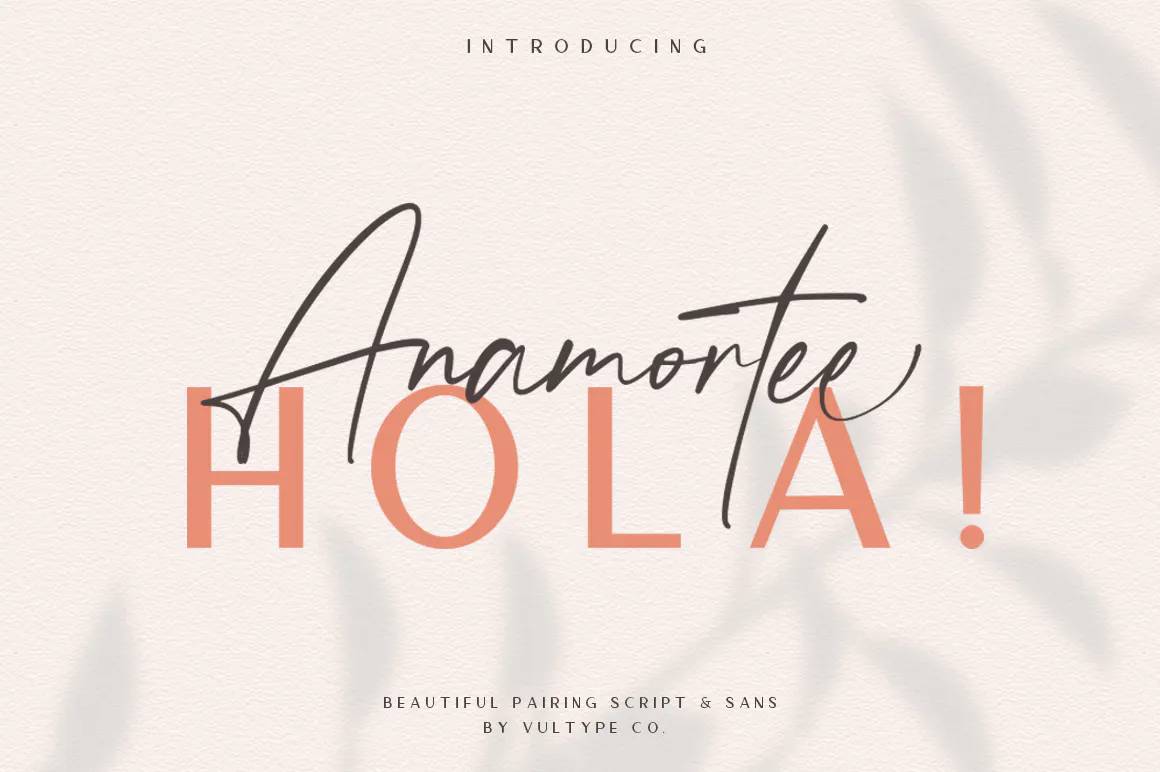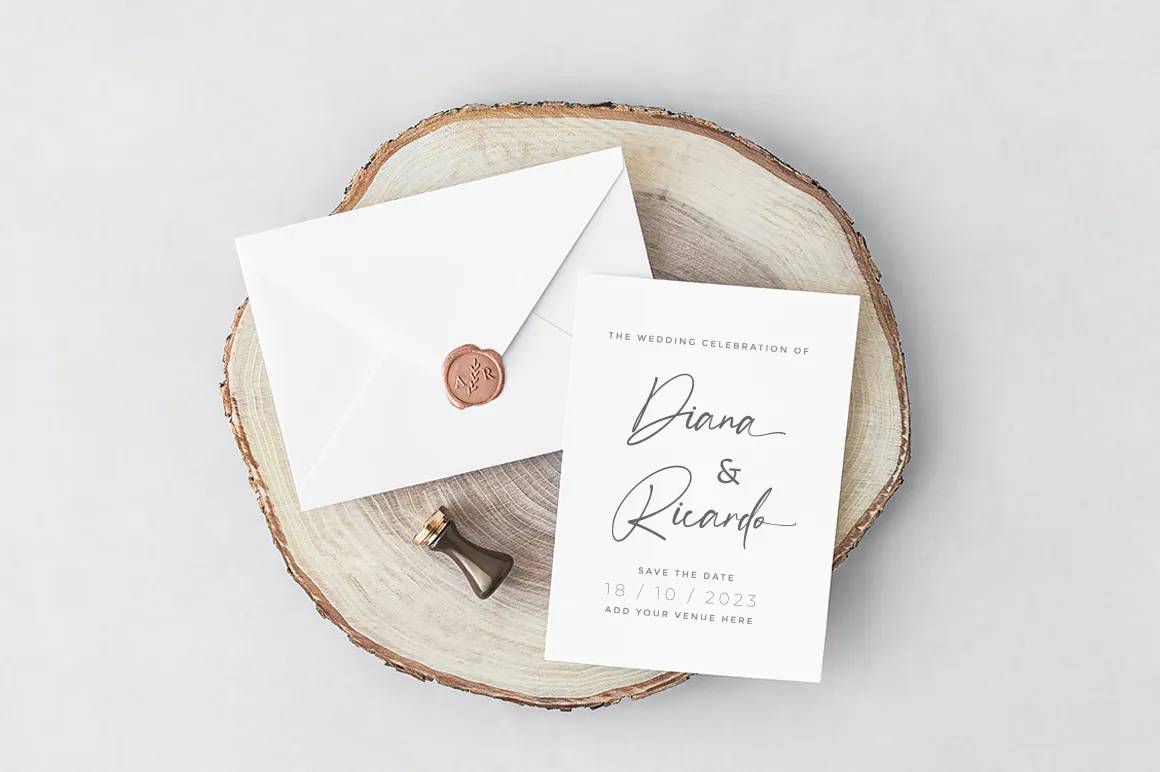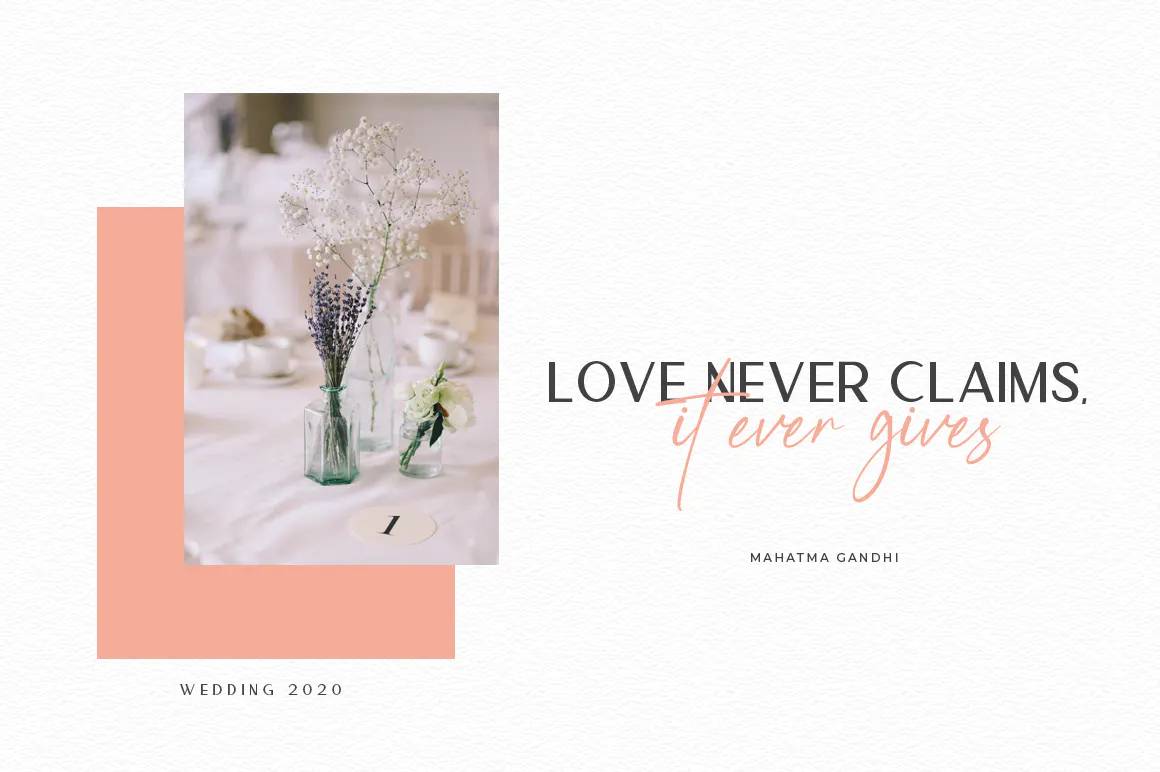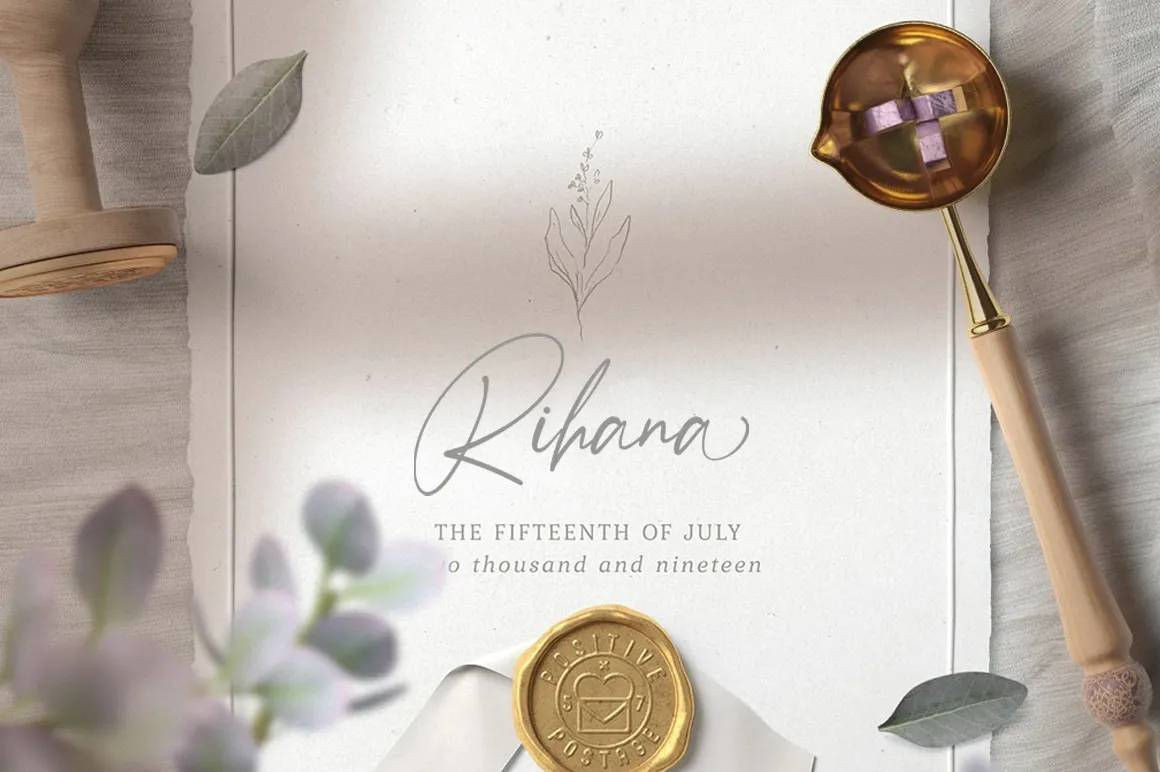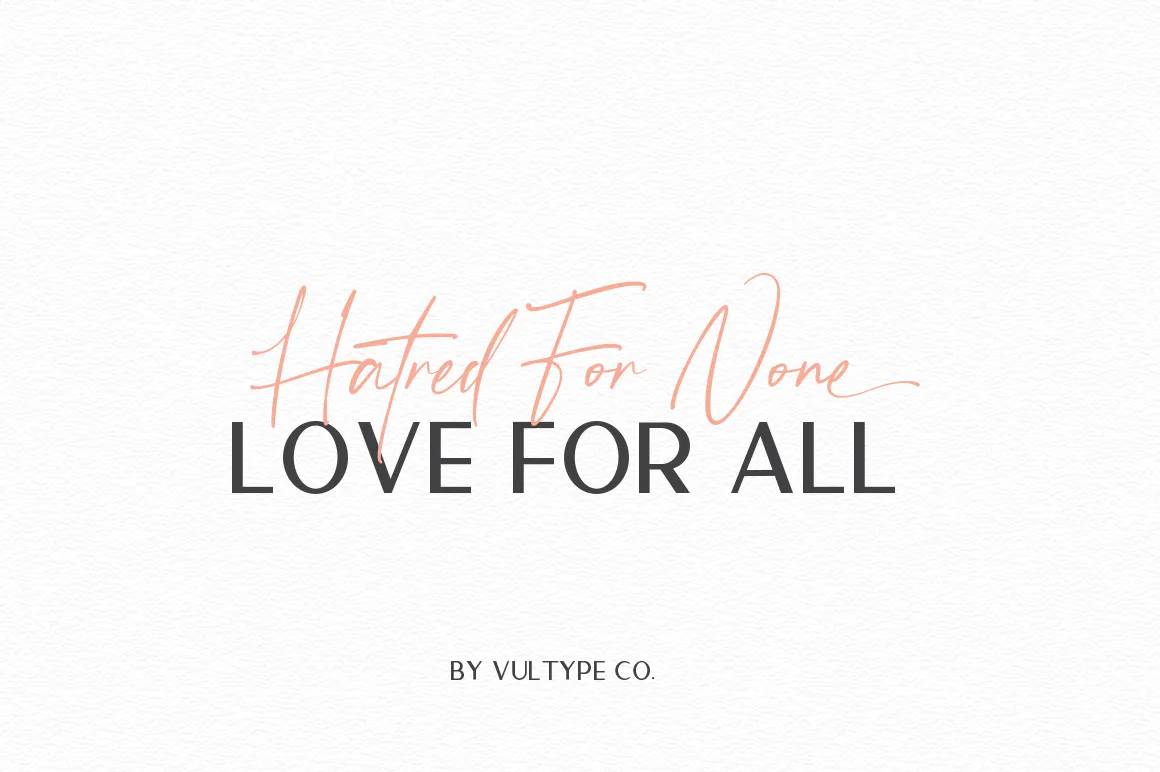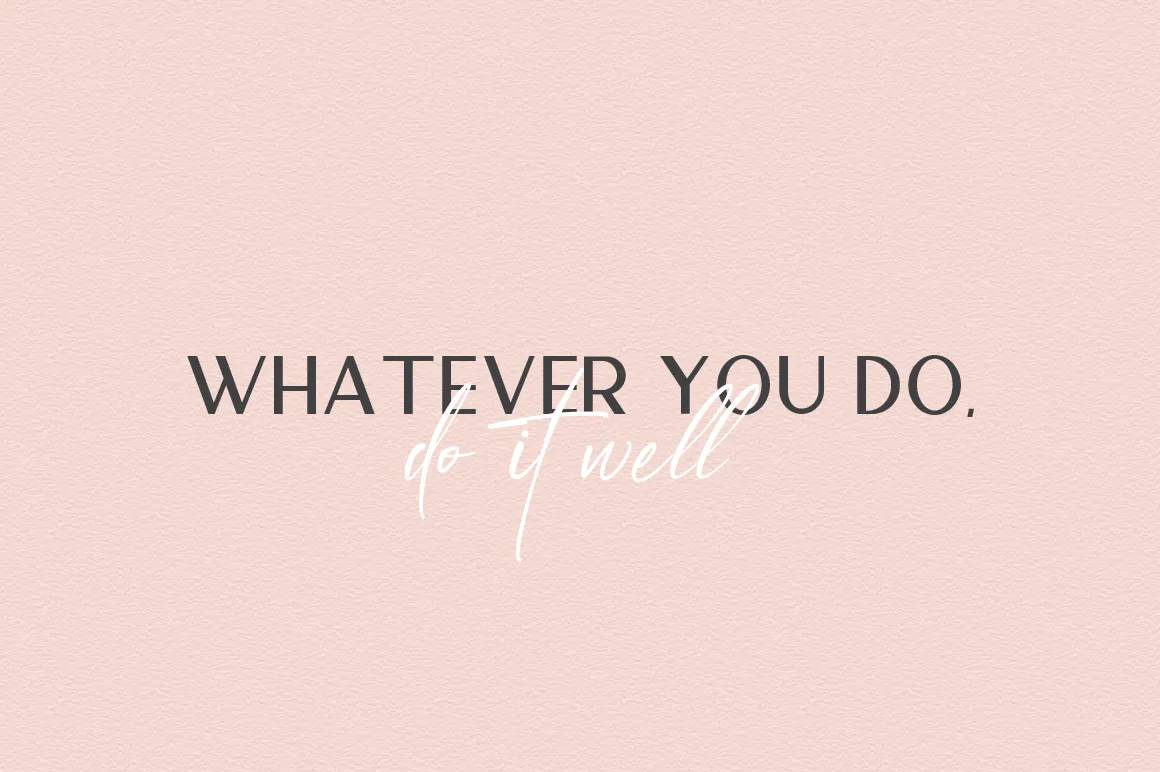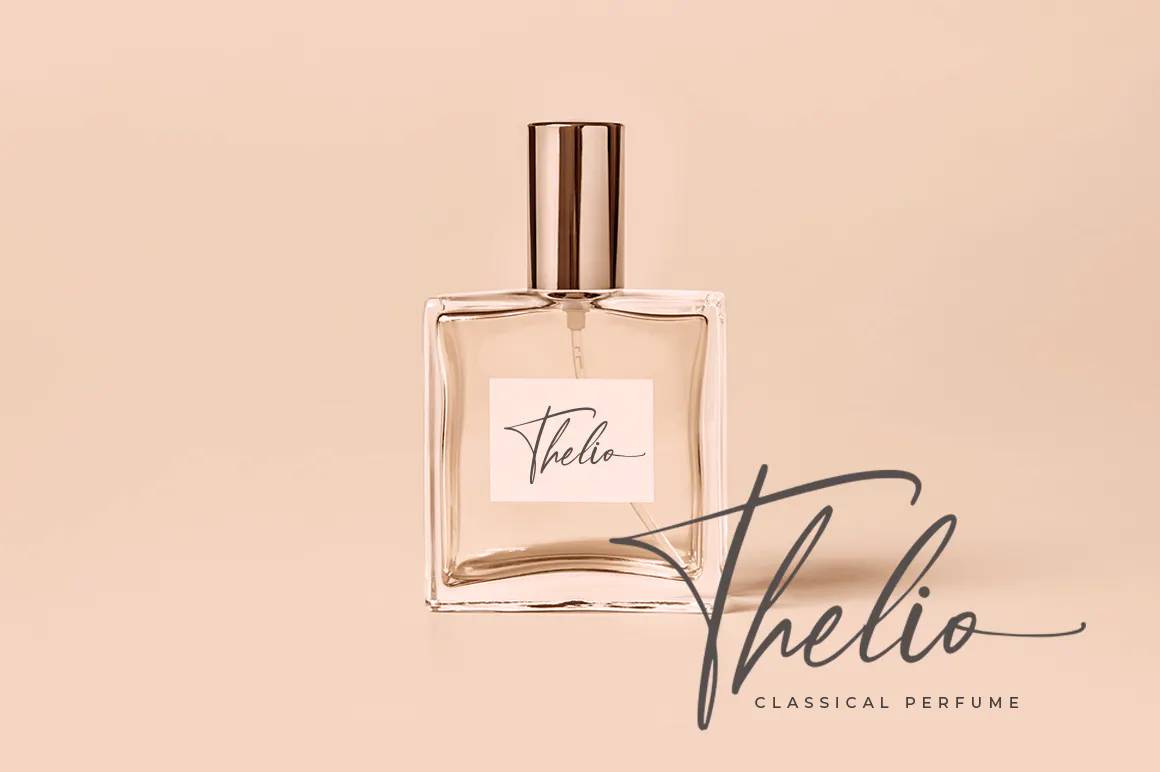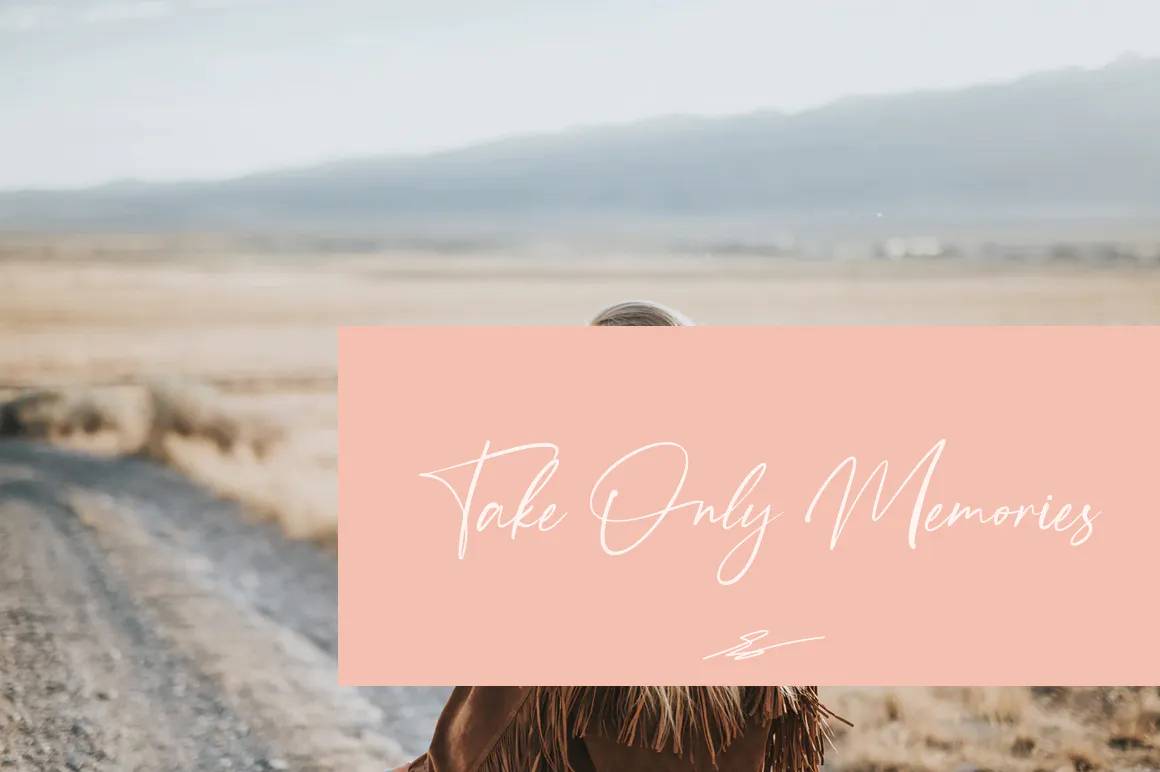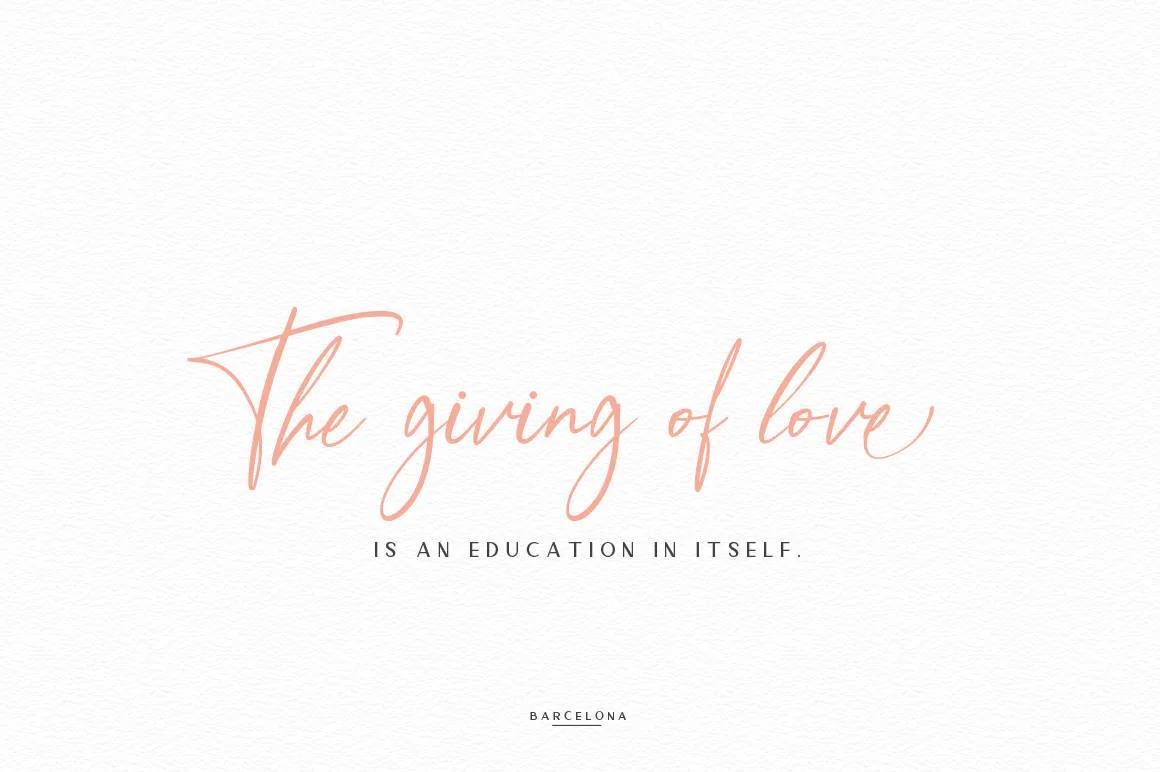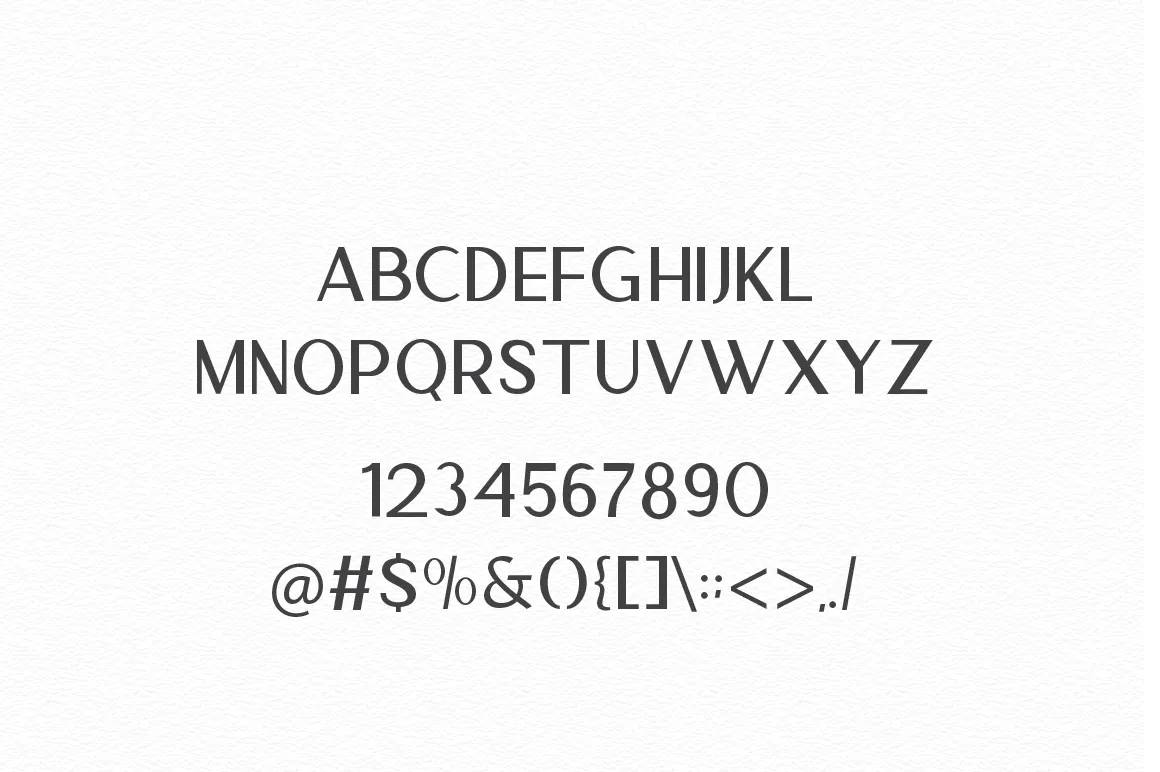
Anamortee Modern Calligraphy is a delicate, elegant script font characterized by its thin, wispy strokes and flowing, handwritten style. Its tall, slender letterforms with graceful loops and slight irregularities give it a sophisticated yet personal touch, making it perfect for wedding invitations, branding, and stylish editorial projects seeking a refined but approachable feel. This font excels in creating a modern, artistic vibe while maintaining readability and charm.
Anamortee Modern Calligraphy Font
About Anamortee Modern Calligraphy Font
| Font family | Anamortee Modern Calligraphy Font |
| Release date | 2020-01-01 |
| Designer | Chandra Vultype |